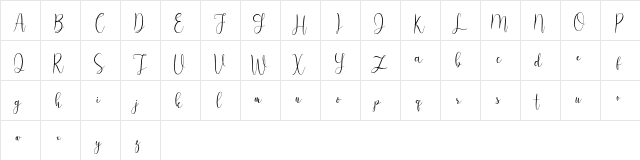
Putih Jasmine demo Regular Font Preview
Putih Jasmine demo Regular
Design Context for Putih Jasmine demo Typeface
Putih Jasmine demo is a composed and adaptable typeface that performs quietly and consistently across a wide range of design contexts.